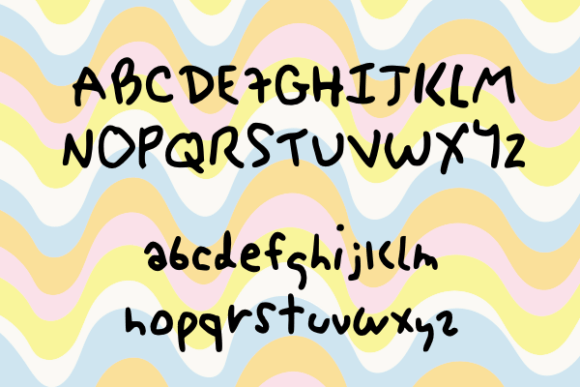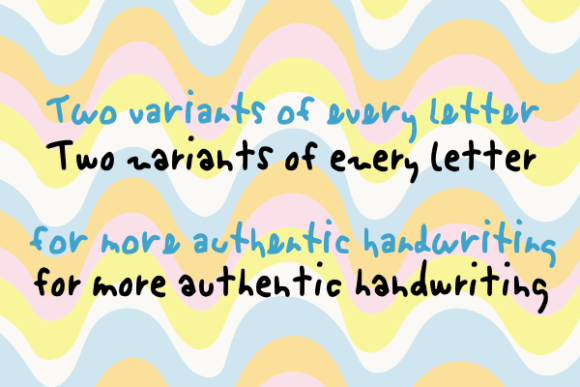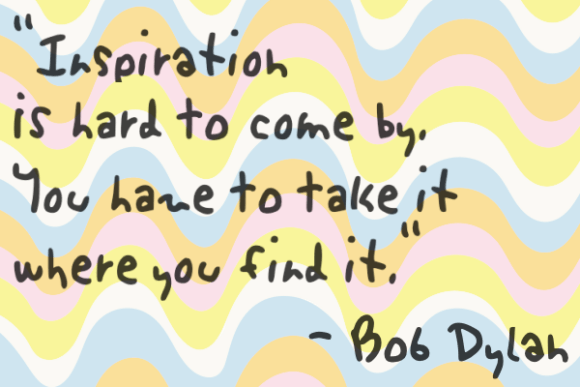
Introduction to Rolling Highway Font
Rolling Highway is a font carefully hand-crafted to emulate the handwriting of singer-songwriter Bob Dylan.
Every letter contains multiple variants to better represent the overall character of Dylanโs handwriting Download includes the randomized base font as well as two additional font files for easy selection of specific variants as needed.